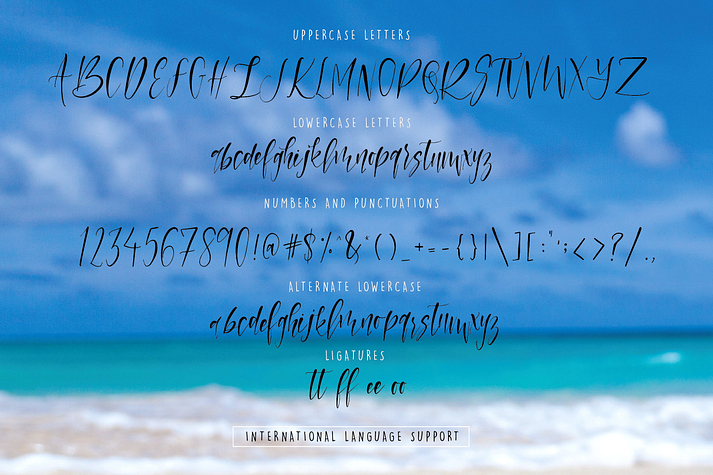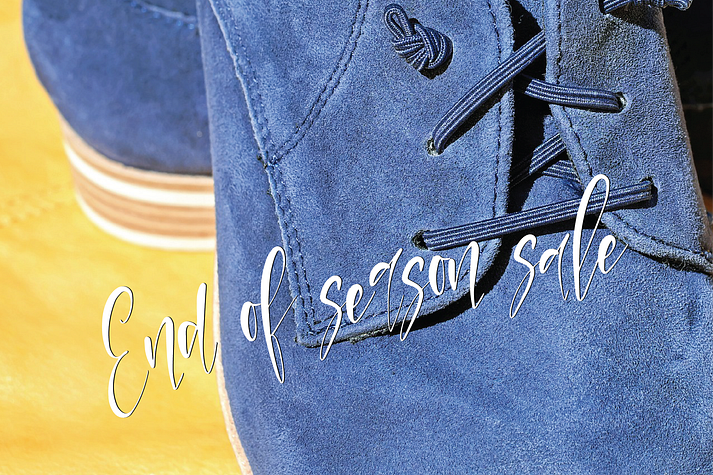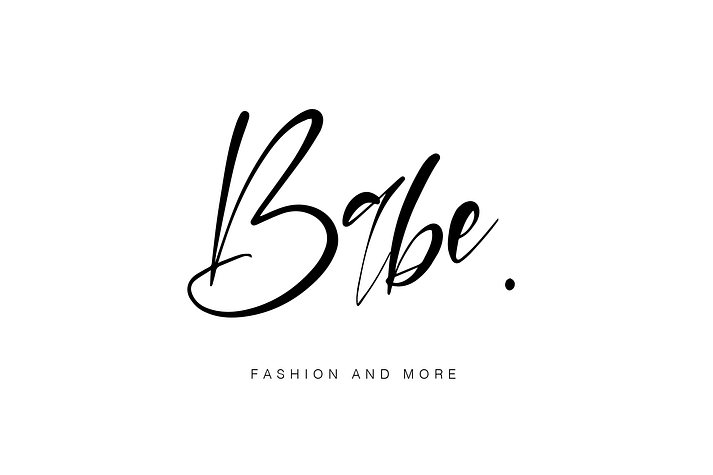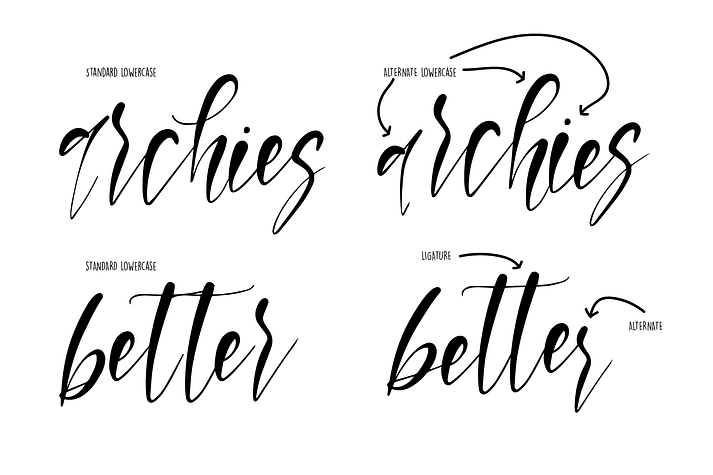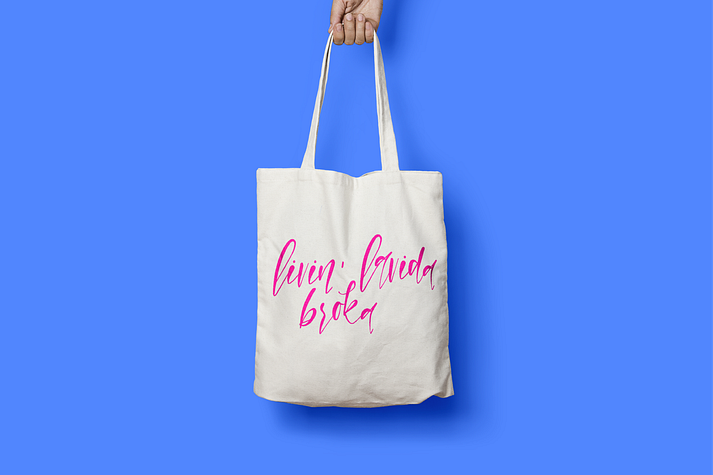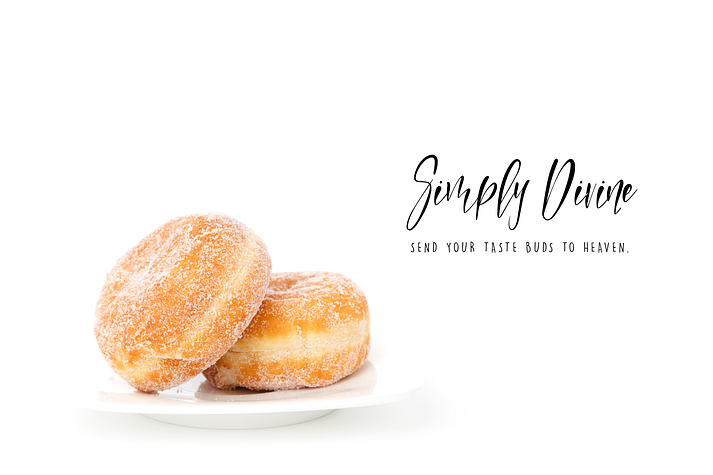
Casablanca
Casablanca is a font family published by TheInkAffair.
Introducing Casablanca, a quirky and carefree font with a whole lotta style.
Casablanca is perfect for personal branding projects like Logos, handwritten quotes, apparel and homeware designs, product packaging, greeting cards or simply as a modern & stylish text overlay to any background image.
Casablanca comes with a set of lowercase alternate letters, and a set of ligatures to make the script look more natural. Lowercase alternate letters can be accessed using the OpenType feature of Adobe Photoshop and Illustrator.
• Uppercase and Lowercase Letters
• Numbers and Punctuations
• Ligatures
• Lowercase alternate letters ( Turn on Stylistic Alternates, an OpenType feature to easily use the alternate lowercase in the font. )
Multilingual support provided.